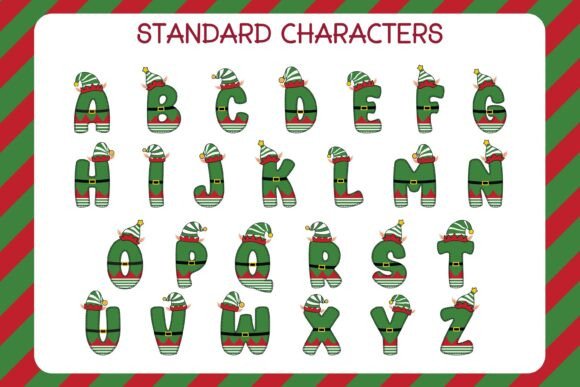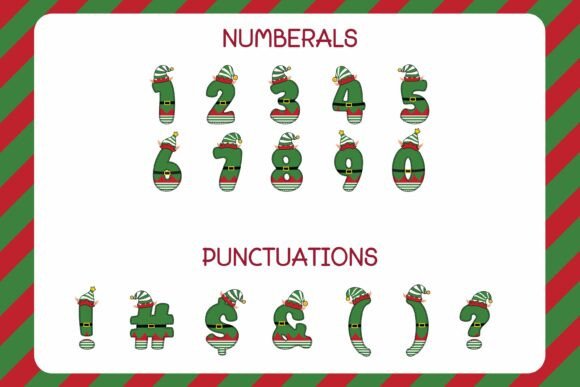
Introducing Elfin Elf Font: The Ultimate Holiday Cheer for Your Designs
Are you looking for a font that embodies the playful and festive spirit of the holiday season? Look no further than Elfin Elf, a color font that is sure to bring joy and creativity to your Christmas projects. This charming font features adorable elf characters, complete with hats, belts, and stripes, making it an instant favorite for designers and crafters alike.
Elfin Elf is designed to bring a touch of holiday magic to your designs. Whether you’re creating greeting cards, children’s crafts, party invitations, stickers, or holiday merchandise, this font is sure to delight. Its bright palette and adorable design make it perfect for projects where character and personality matter.
Versatile and Easy to Use
Richly Detailed and Colorful
Each glyph in Elfin Elf is richly detailed and rendered in color, making it ideal for projects where character and personality matter. The characters maintain legibility while embracing a decorative, cartoon-like feel that’s sure to bring a smile to your face. Whether you’re creating digital or print designs, Elfin Elf is sure to add a touch of festive fun.
Three Variations for Added Flexibility
Why Choose Elfin Elf?
- Playful and festive: Elfin Elf is the perfect font for adding a touch of holiday cheer to your designs.
- Adorable design: Each letter is shaped like an elf, complete with charming details like hats, belts, and stripes.
- Easy to use: The font includes both uppercase and lowercase variations, with letters dressed in different elf variations for added variety and fun.
- Richly detailed: Each glyph is richly detailed and rendered in color, making it ideal for projects where character and personality matter.
Get Creative with Elfin Elf
So why settle for a boring, generic font when you can add a touch of holiday magic to your designs with Elfin Elf? Whether you’re a designer, crafter, or DIY enthusiast, this font is sure to inspire your creativity and bring joy to your projects. So go ahead, get creative, and spread the spirit of the season with Elfin Elf!
Tips and Ideas for Using Elfin Elf
- Create festive greeting cards: Use Elfin Elf to add a touch of holiday cheer to your greeting cards.
- Make fun children’s crafts: Elfin Elf is perfect for creating fun and interactive children’s crafts, such as holiday stickers and coloring pages.
- Design party invitations: Use Elfin Elf to create festive party invitations that are sure to delight your guests.
- Add a touch of holiday magic to your merchandise: Elfin Elf is perfect for adding a touch of holiday cheer to your holiday merchandise, such as t-shirts, mugs, and tote bags.
In conclusion, Elfin Elf is a fun and festive color font that’s perfect for adding a touch of holiday cheer to your designs. With its adorable elf characters, bright palette, and versatile formats, it’s the perfect choice for designers, crafters, and DIY enthusiasts alike. So why wait? Download Elfin Elf today and start spreading the spirit of the season!